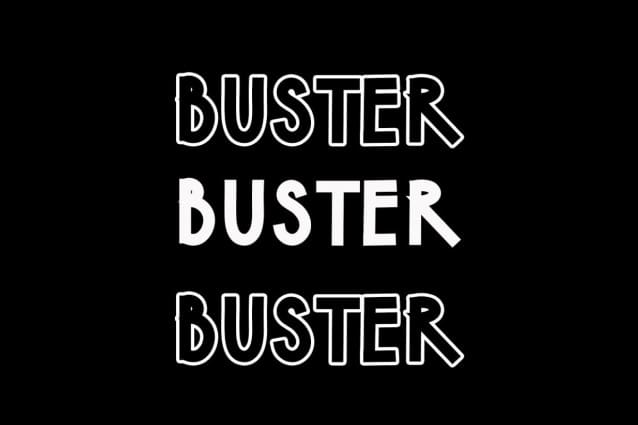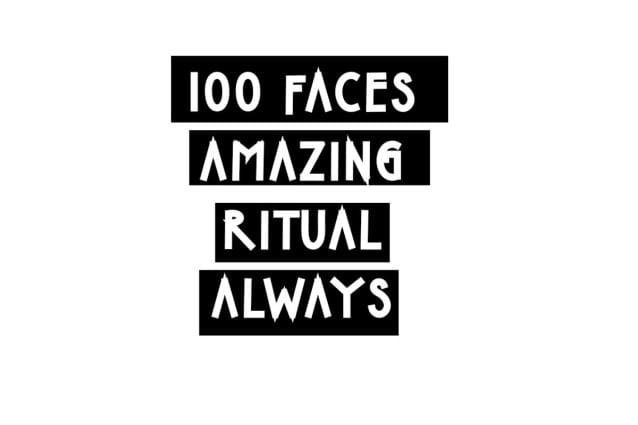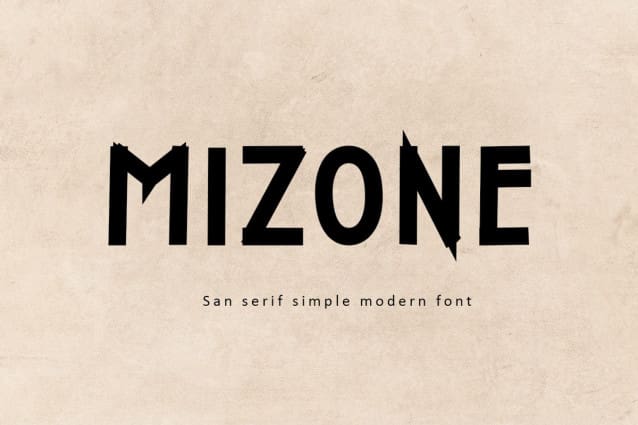
Mizone Font
Mizone Font is a modern and stylish typeface that exudes a sense of contemporary elegance. Designed with precision and attention to detail, Mizone features clean lines and well-balanced letterforms, making it a versatile choice for various design projects.
The font showcases a harmonious blend of smooth curves and subtle edges, striking the perfect balance between sophistication and approachability. Its tall and slightly condensed lettering provides a unique flair that adds a touch of sophistication to any design.
Mizone Font is particularly well-suited for branding, logo design, editorial layouts, and other creative endeavors that demand a touch of modernity and chic. Its readability remains intact, even at smaller sizes, ensuring legibility in both print and digital mediums.
Whether used for headlines, body text, or any other design element, Mizone’s sleek and contemporary aesthetics will captivate audiences and elevate the overall visual impact of any project it graces.”